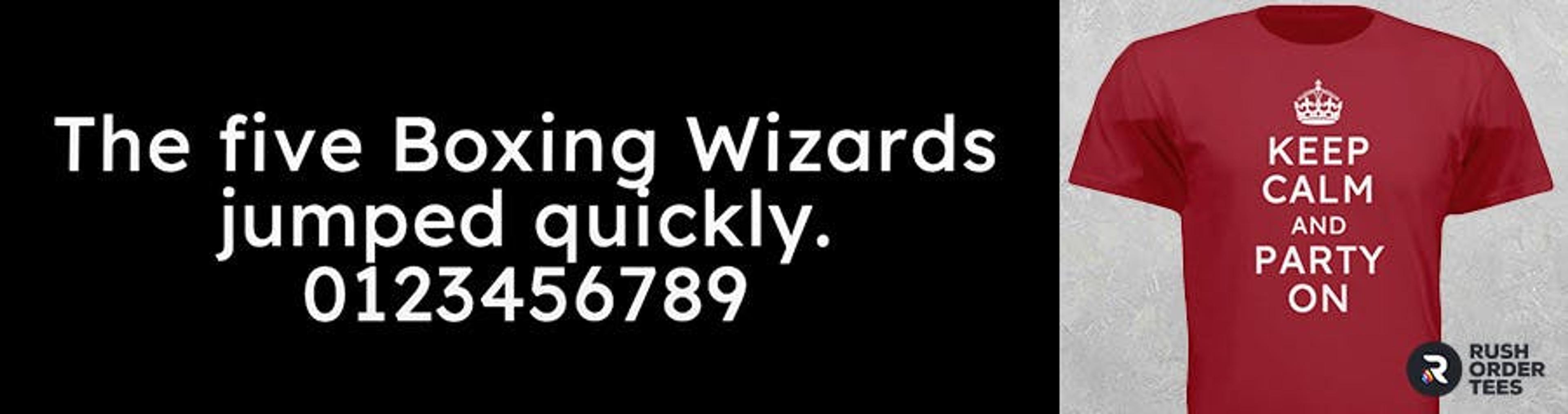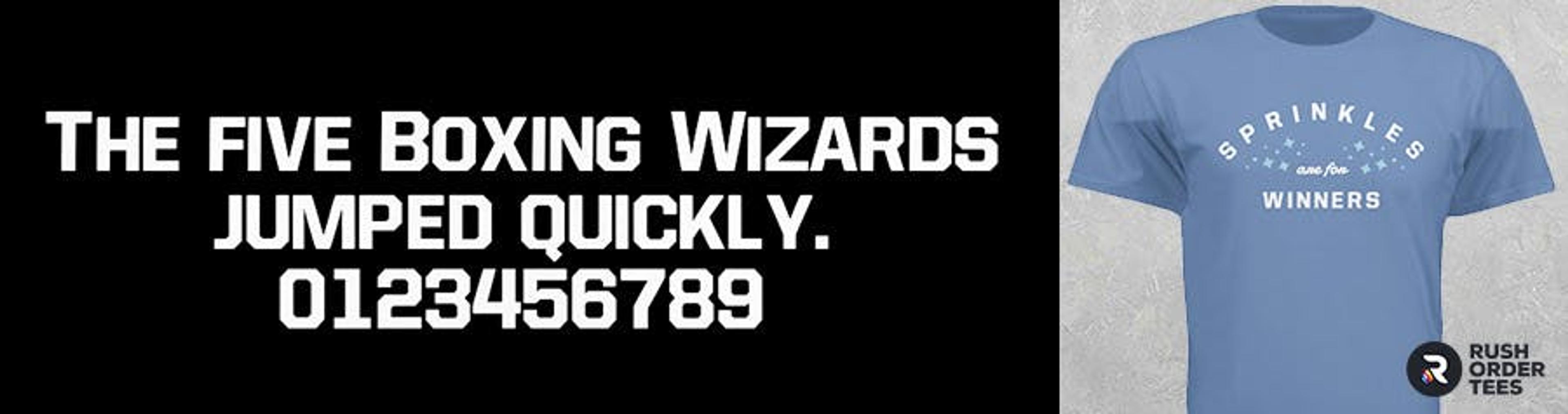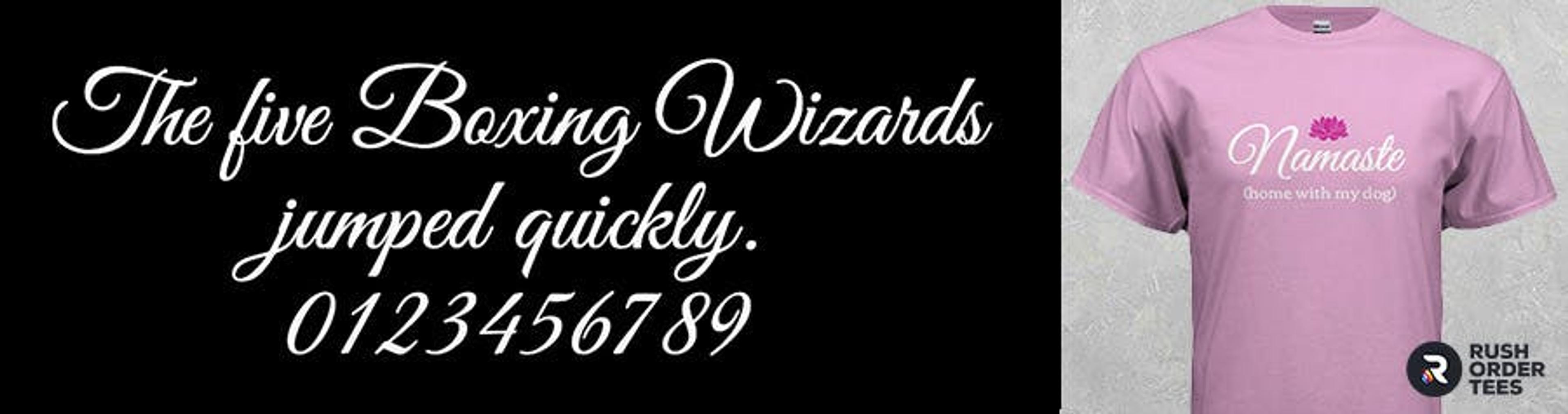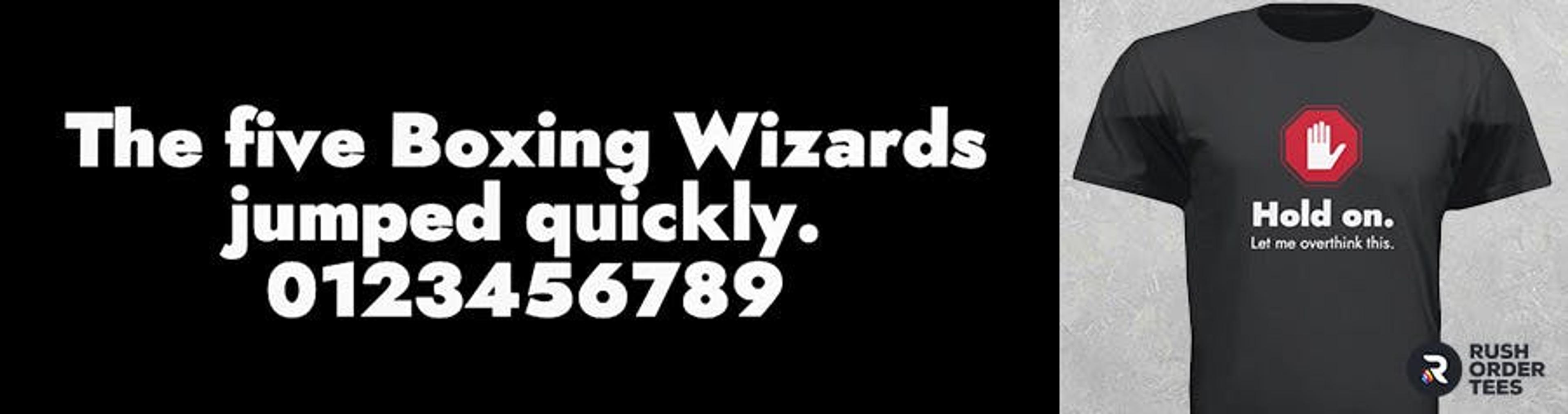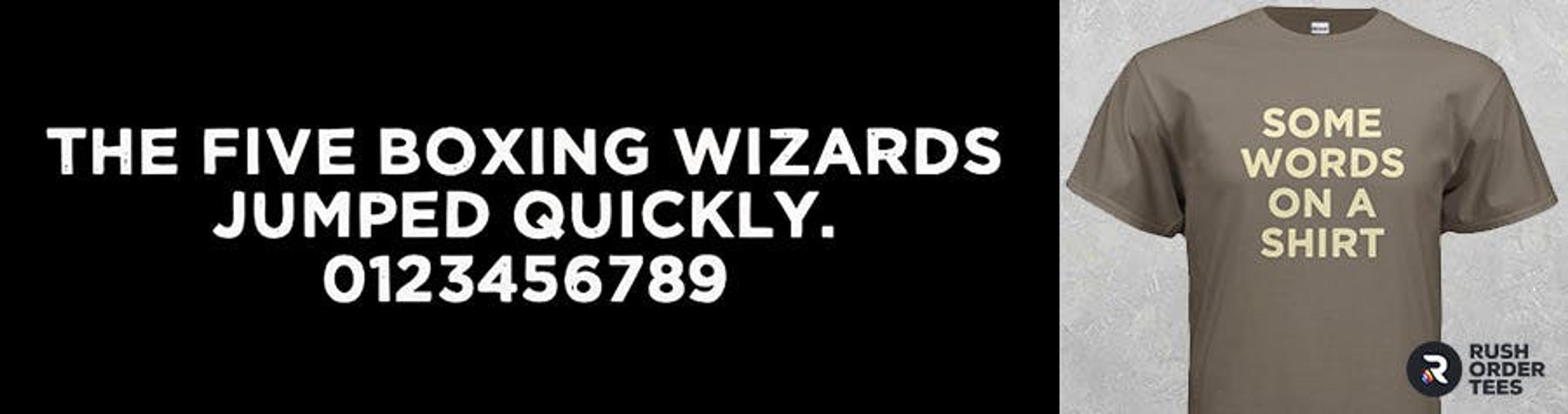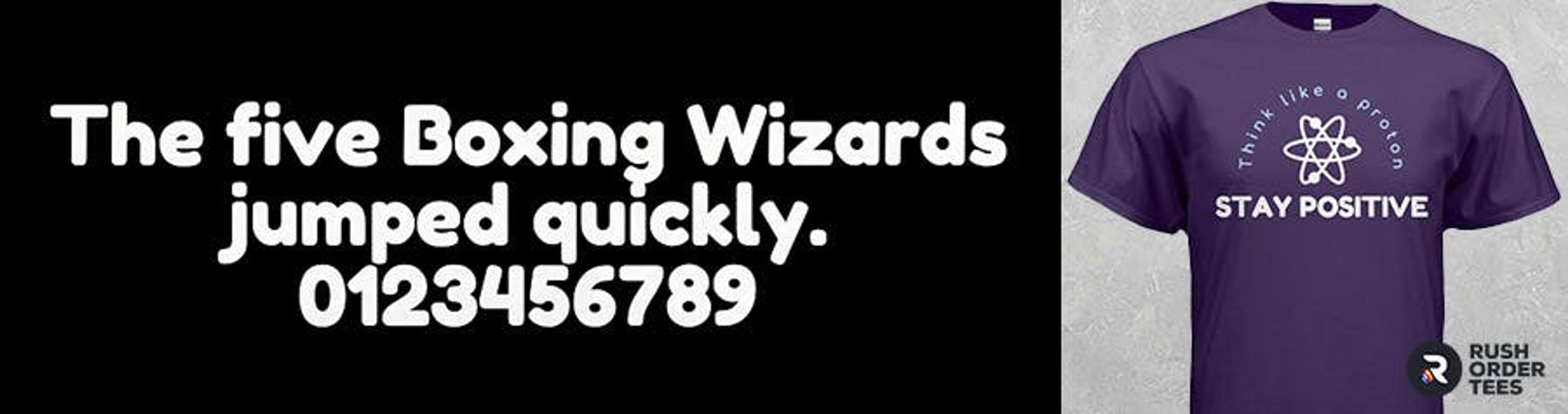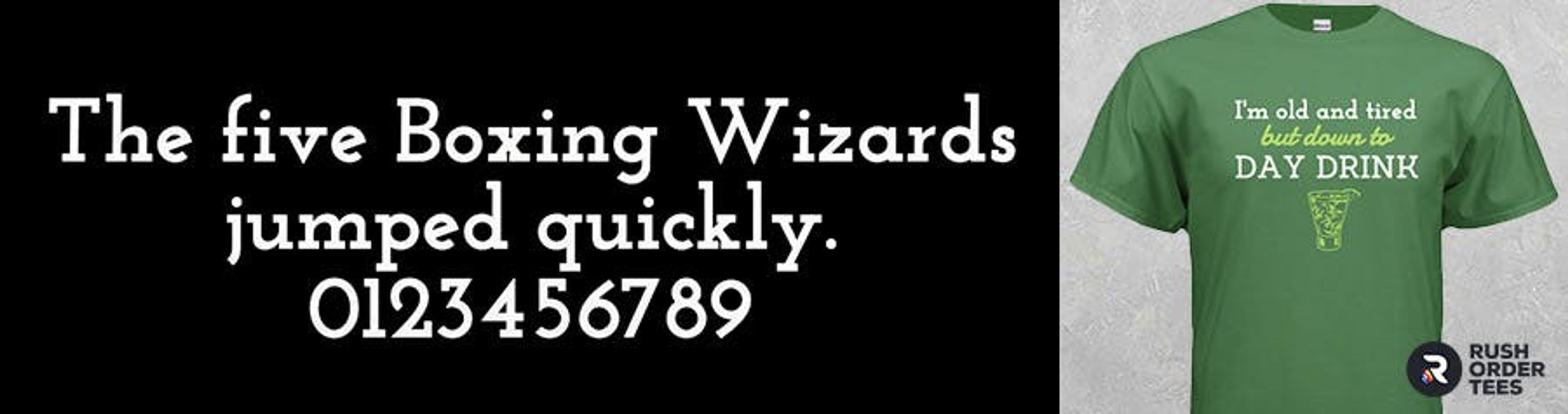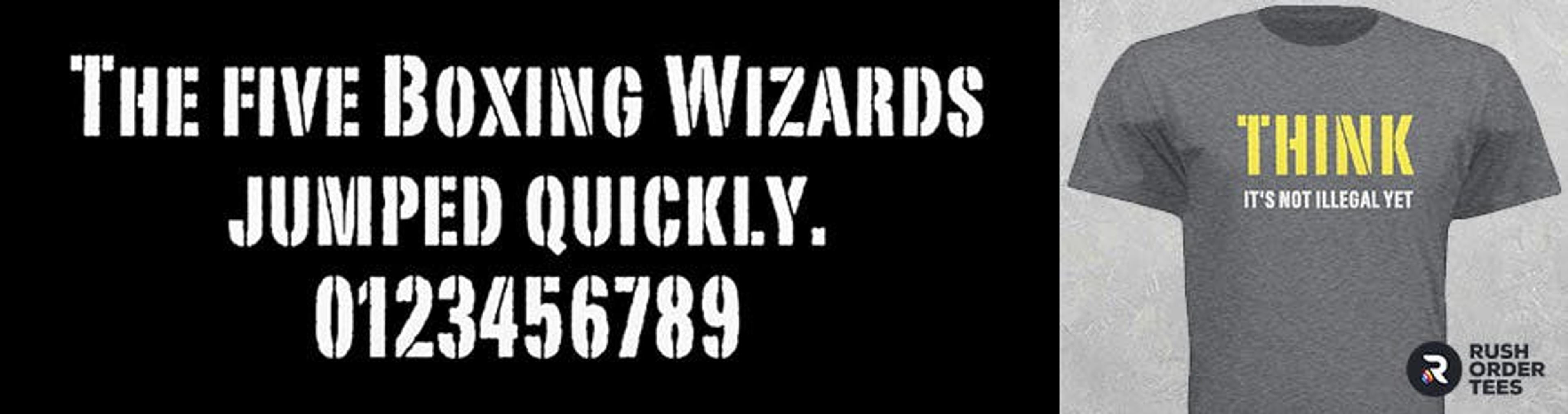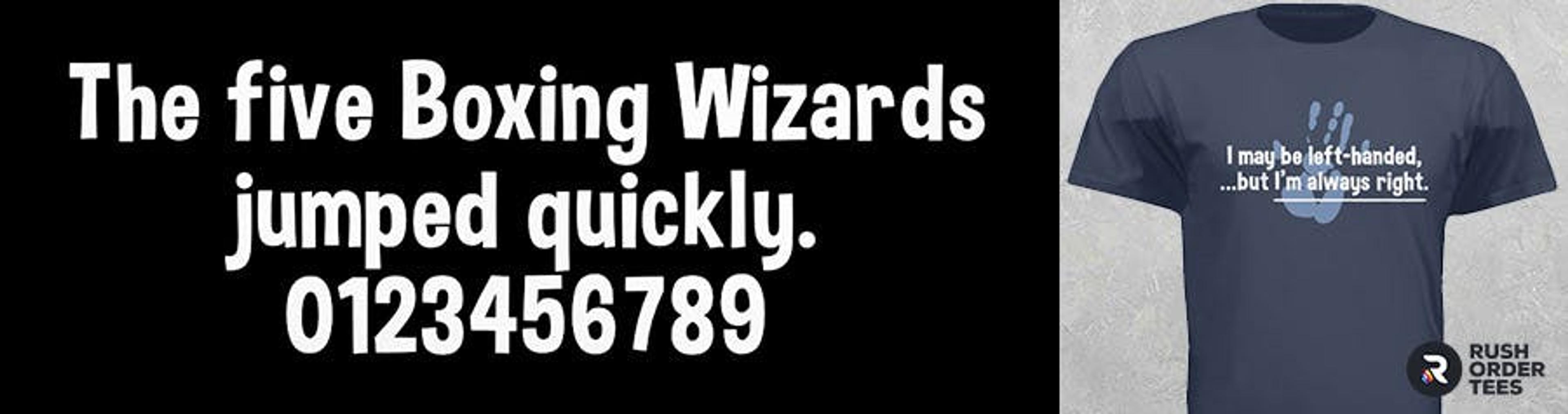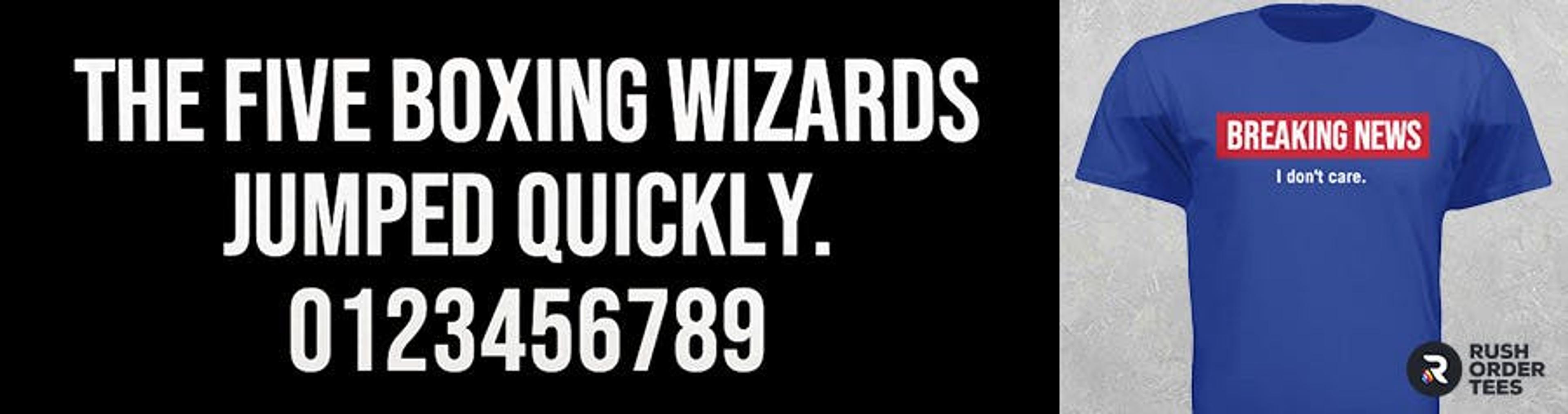
15 of the Best Fonts for T-Shirts
Font selection is one of the most important parts of a T-shirt design. Fonts convey important information about your brand, group, or event. Much more than the words in the message alone. The best fonts for T-shirt designs are typically bold, distinctive, easy to read and help communicate the message.
1. Subway Black
Category: display/semi-serif/standard
Characteristics: Extra bold, puffy/rounded, classic/retro
Best used for: headlines, branding, athletic, humor, events
Pairs well with: Asap Condensed, Corben, Josefin Sans, Jost Light, Mitr, Oswald
Use instead of: Alpha Slab, Bernard MT, Corben Bold, Hepta Slab Black, Rokkit Black
2. Allstar 4
Category: display/san-serif/standard
Characteristics: Block, angular, sci-fi/modern
Best used for: branding, athletic, title, events
Pairs well with: Rokkitt, Steelfish, Roboto Slab Thin, Reem Kufi, Oswald
Use instead of: Collegiate, Freshman, Soccer League
3. Bebas New
Category: display/sans-serif/standard
Characteristics: Block, condensed, bold, rounded, all-caps
Best used for: headlines, branding, athletic, humor, events, names
Pairs well with: Alata, Heebo Bold, Hepta Slab Medium, Josefin Sans, Monsserrat
Use instead of: Interstate, Impact, Carbon Block, Khand Bold, Oswald
4. Jost Black
Category: display/sans-serif/standard
Characteristics: Bold, block, sharp, modern
Best used for: headlines, branding, athletic, humor, names, events
Pairs well with: Asap Condensed italic, Comforta Light, Corben, Josefin Slab Thin
Use instead of: Berlin Sans, Frutiger Black, Gil Sans Bold, Impact, The Bold Font
5. Roboto
Category: display/sans-serif/standard
Characteristics: bold, modern
Best used for: headlines, branding, professional, events
Pairs well with: Alata, Crimson Caps, Josefin Sans Italic
Use instead of: Trade Gothic, Teko Medium, Russo One
6. Damion
Category: display, script, bold
Characteristics: italic, rounded, whimsical
Best used for: branding, accent, humor, professional
Pairs well with: Fredoka One, Instaburger, Jost Black, Mitr Bold
Use instead of: Blenda Script, Brophy Script, Cookie, Harlow, Lobster
7. Lexend Deca
Category: sans-serif, standard
Characteristics: clean, simple, medium weight
Best used for: branding, professional, small type
Pairs well with: Almost any serif block or bold display type
Use instead of: Comforta, Reem Kufi, Muli Semi-Bold
8. Wicked Grit
Category: display, sans-serif, all-caps
Characteristics: bold, hand-drawn, distressed
Best used for: branding, athletic, humor, very large type
Pairs well with: Carbonated Gothic, Haziness
Use instead of: 28 Days Letter, DCC Ash
9. Balsamiq
Category: sans-serif, brush
Characteristics: simple, hand-drawn
Best used for: humor, fun, kids
Pairs well with: Balsamic Thin
Use instead of: Comic Sans, Chalkboard
10. Steelfish
Category: display, sans-serif, standard
Characteristics: Bold, extra-condensed, modern
Best used for: athletic, branding, professional, small type
Pairs well with: Almost any thin, san-serif standard font
Use instead of: Comforta, Reem Kufi, Muli Semi-Bold
11. Fredoka
Category: display, sans-serif
Characteristics: bold, funky, rounded, modern
Best used for: humor, events, branding
Pairs well with: Comforta thin, Asap condensed italic, Hepta Slab Medium
Use instead of: Dongle Bold
12. Sanchez
Category: display, serif, standard
Characteristics: stylish, quirky, medium-weight
Best used for: branding, professional, small type
Pairs well with: Serif block or bold display or script display font
Use instead of: Adobe Garamond, Georgia, Josefin Slab Bold
13. Portago ITC
Category: display, sans-serif, stencil
Characteristics: all-caps, distressed edges
Best used for: athletic, branding
Pairs well with: Jost Bold, Gunplay
Use instead of: Stencil, Rubber Stamp, Boston Traffic
14. Dimbo
Category: display, sans-serif, cartoon
Characteristics: funky, simple, whimsical
Best used for: kids, events, humor
Pairs well with: Dongle Light
Use instead of: Yikes, Comix Heavy, Cartoon Shout Acme
15. Good Vibes
Category: Display, script
Characteristics: elegant, lively, medium weight
Best used for: events, branding, professional names, accent
Pairs well with: Almost any serif block or bold display type
Use instead of: Bernard MT Condensed, Corben Bold, Elephant, Kreon Bold